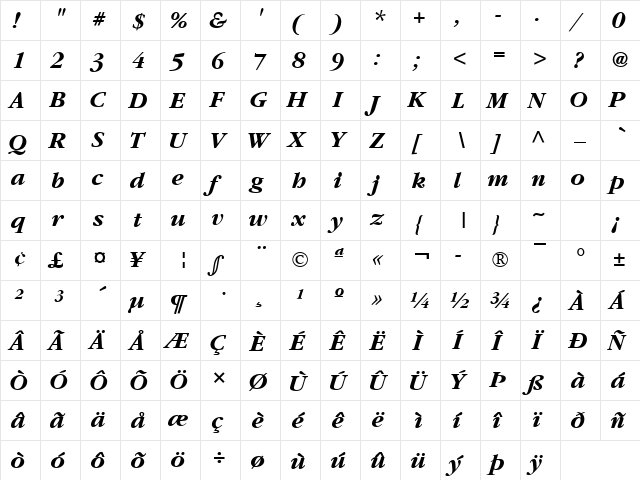
Gourmand Bold Italic
Design Context for Gourmand Typeface
Gourmand takes a measured approach to typography — its balanced proportions and neutral character make it a reliable workhorse for both digital and print work. The dynamic lean of this cut emphasises speed and emphasis in any layout. The heavy weight commands attention and anchors typographic hierarchies.
Pro Tip: Try Gourmand for annotation and caption copy alongside an upright companion — the contrast in angle creates a dynamic but ordered typographic system.